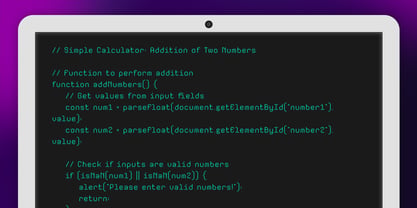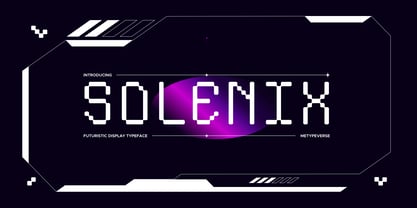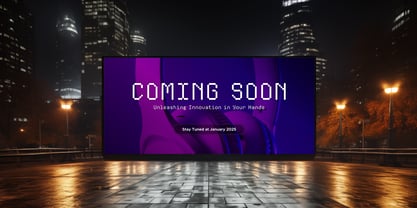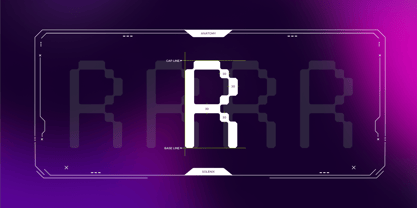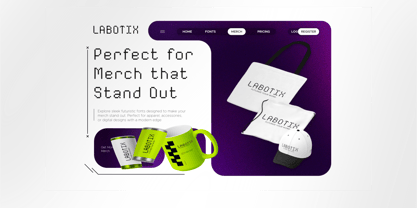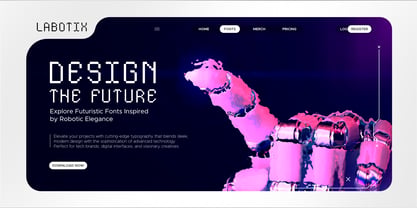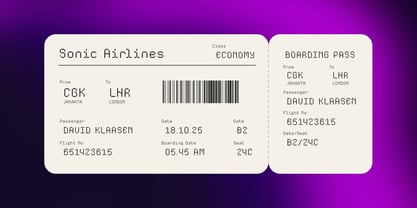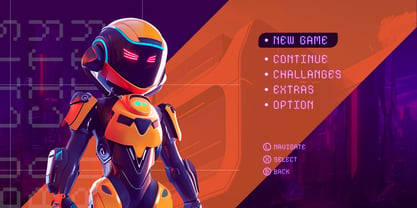
Solenix
by Metypeverse
The Solenix Font Family was designed by Mohamad Ridwan and published by Metypeverse. Solenix contains 2 styles and family package options. More about this family
Technical doesn’t have to feel cold.
Solenix brings a clean monospace structure together with subtle pixel-inspired details, giving functional typography a more distinctive digital character. Compact, clear, and built to feel precise, it works naturally across codes, menus, tickets, interfaces, tech branding, and futuristic layouts.
For projects that need information to stay organized without looking generic, Solenix adds just enough personality to make every detail feel more intentional and forward-looking.
Designers: Mohamad Ridwan
Foundry: Metypeverse